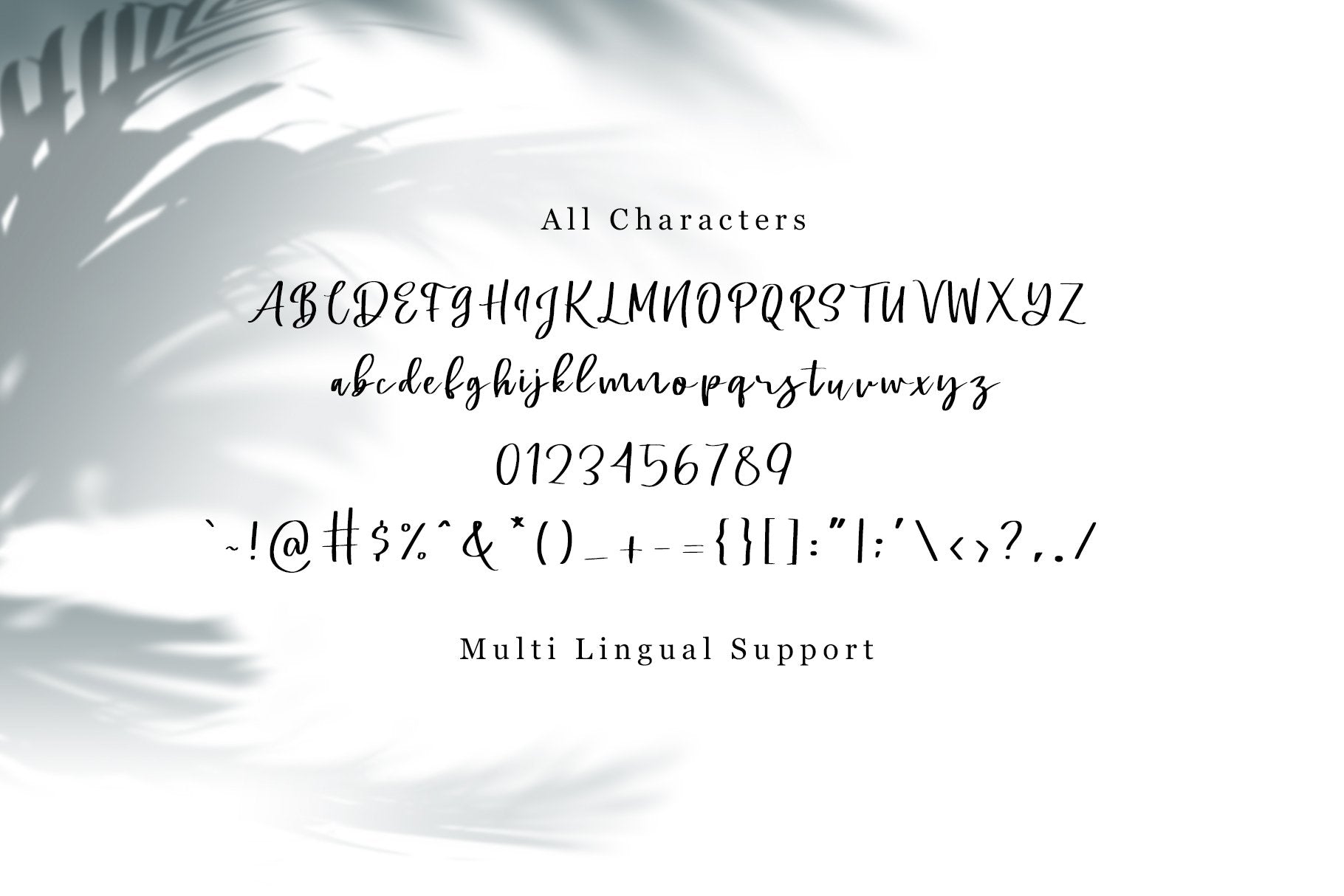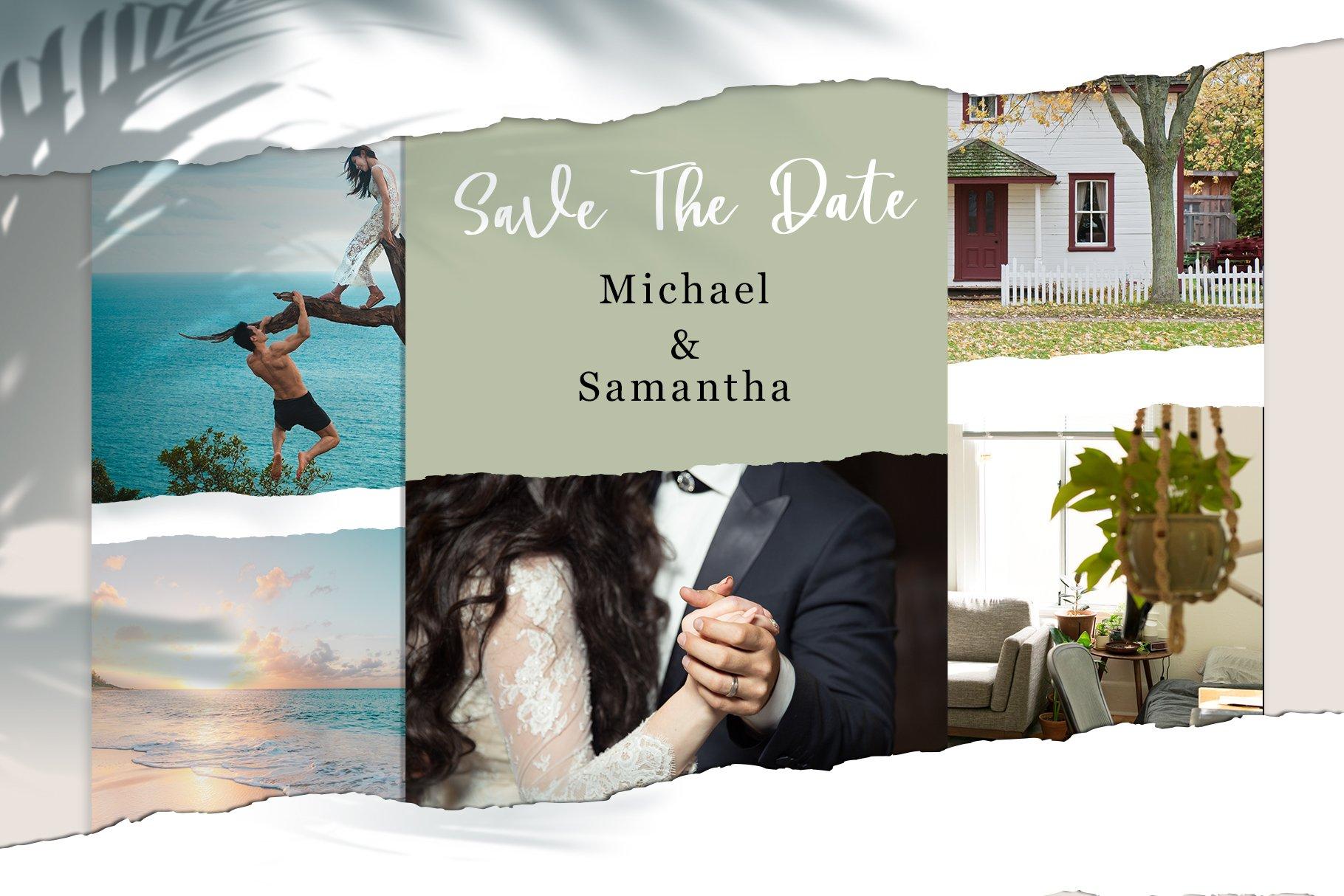
About Swally – Brush Script Font
Introducing : Swally, the modern Brush Script Font. This is an elegant, yet lovely modern digital brush script font. Make your design more catchy and stylish by using this font! Attach on your website template, flyer, product, invitation, promotion stuffs, craft, magazine, cover, quote, merchandise or even just to post on your social media! Features : – Uppercases – Lowercases – Numerals – Symbols & Punctuations – Extra Ligatures & lowercase alternates Files : – Swally OTF, TTF, WOFF Please contact us for questions & issues about our products, Hope you love it and Happy designing! Thank you!